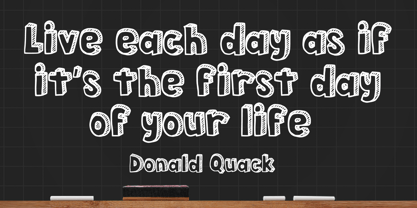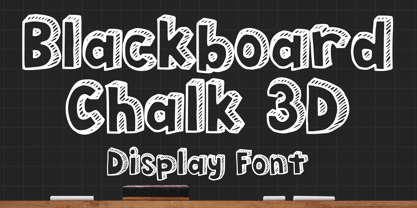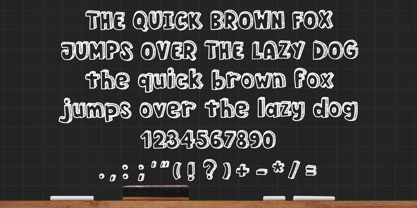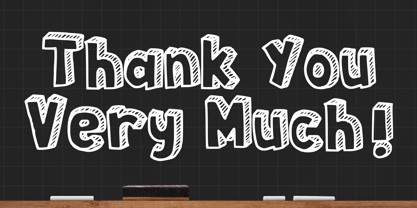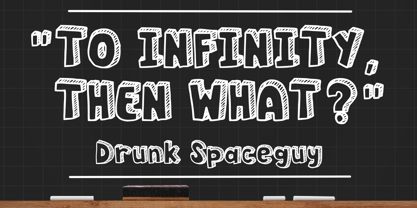
Blackboard Chalk 3d
by Mvmet
The Blackboard Chalk 3d Font Family was designed by Gabriel Valentinus and published by Mvmet. Blackboard Chalk 3d contains 1 styles. More about this family
Discover the charm of Blackboard Chalk 3D, a font that beautifully blends sketchy handwritten allure with the textured feel of chalk. Its playful personality makes for eye-catching creations that demand attention. Whether it's for t-shirts, captivating book designs, tantalizing restaurant menus, engaging blog posts, heartfelt greeting cards, or quirky stickers, Blackboard Chalk 3D infuses an easygoing vibe into your projects. Revel in its captivating style and harness its unique features to bring your designs to life in a delightfully casual manner, perfect for branding, web use, and editorial applications.
Designers: Gabriel Valentinus
Foundry: Mvmet